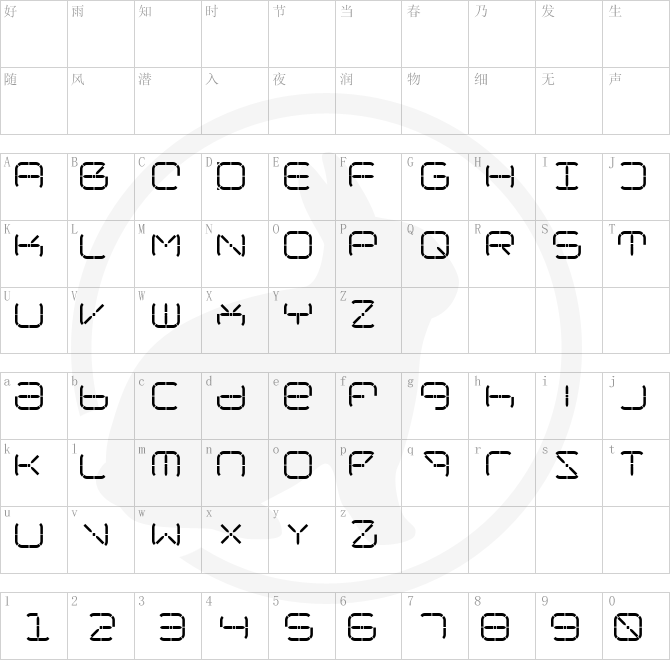
- Font Name:R-2014
R-2014.ttf is a very beautiful artistic font, R-2014.ttf is widely used in the design and printing of various books and pictures,R-2014.ttf has a strong visual impact,R-2014.ttf is a commonly used font in newspapers, magazines and books, and is used in posters, e-commerce Poster design, store design, logo design, font design and other fields.R-2014.